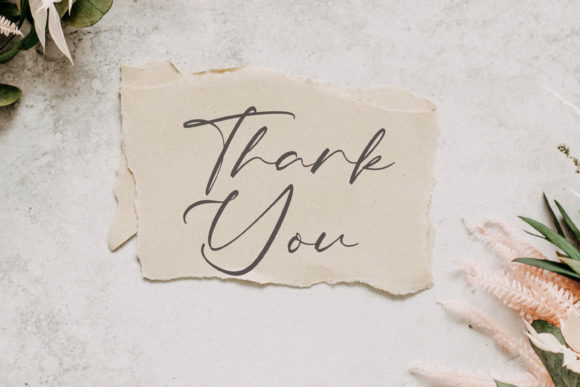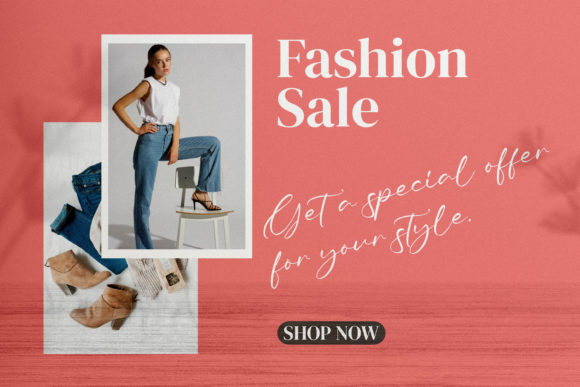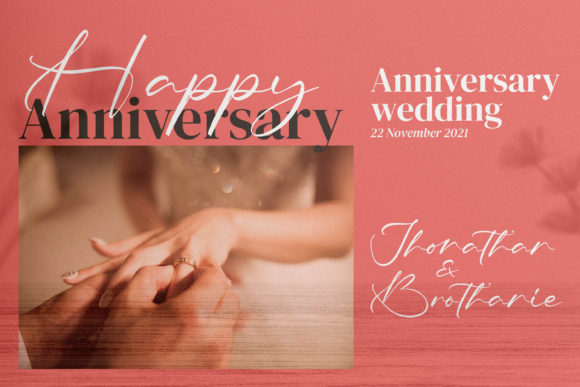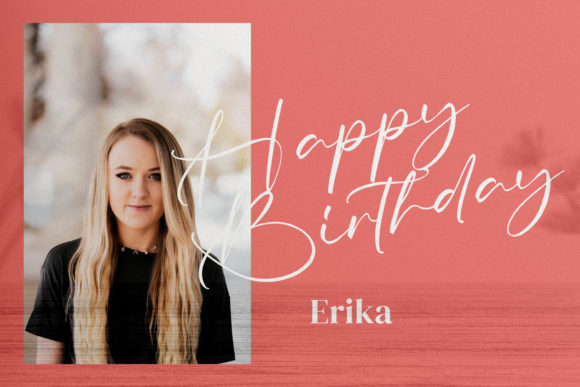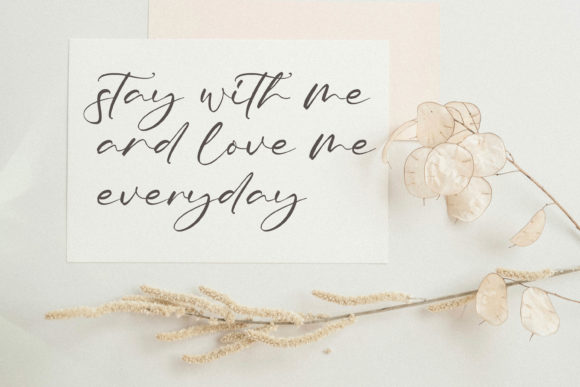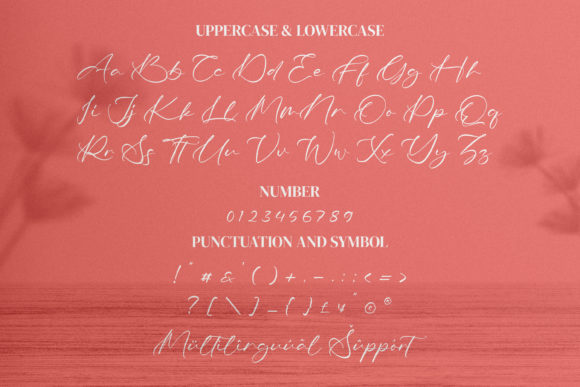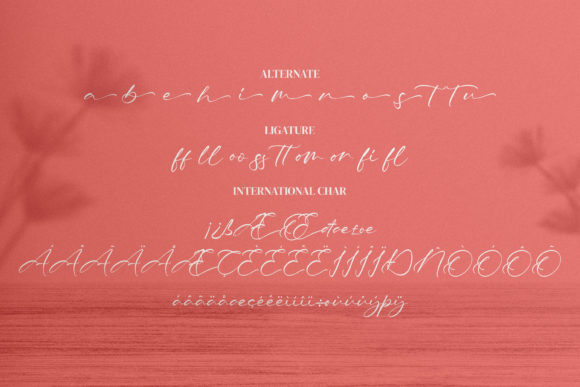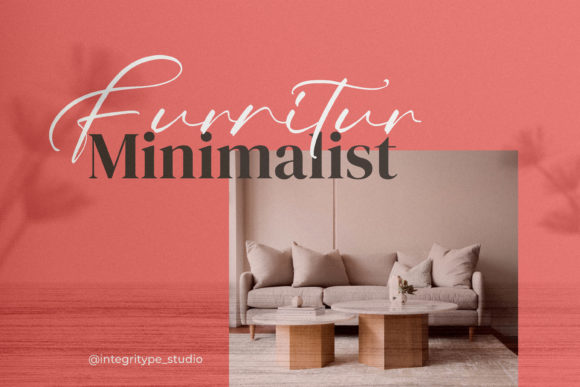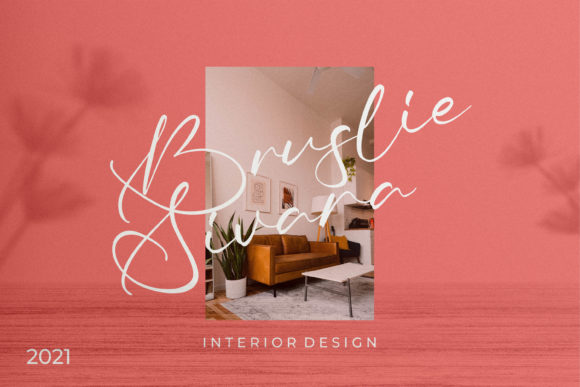
Tiara Font
About Tiara Font
Tiara is a modern script font, ideal for logos, branding projects, homeware designs, product packaging, mugs, quotes, posters, shopping bags, book covers and pretty much any other luxury projects that needs a premium signature taste.